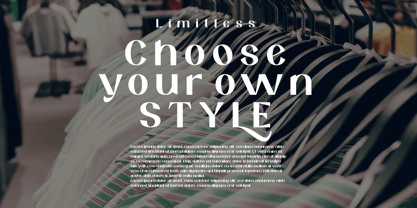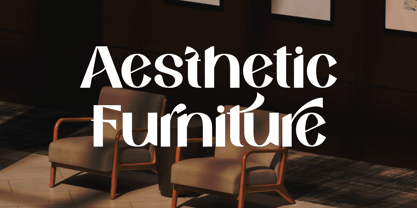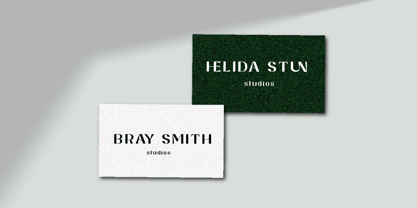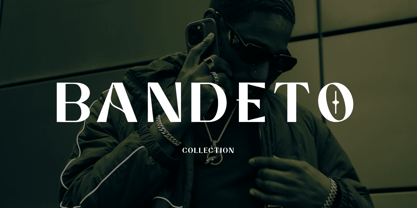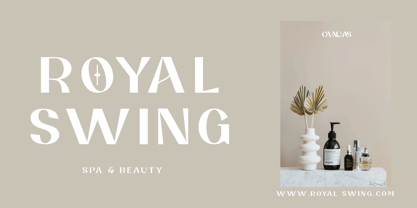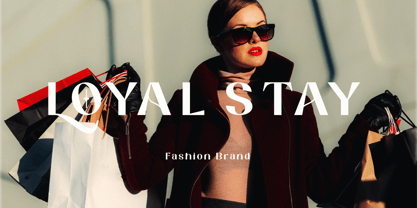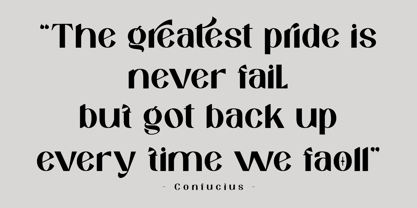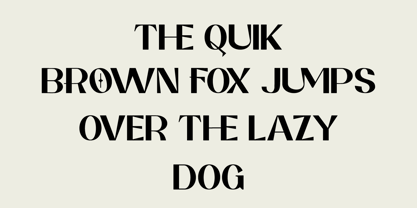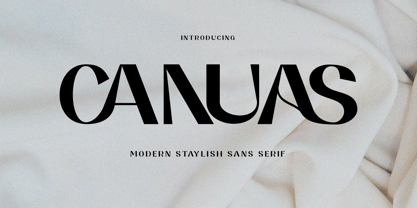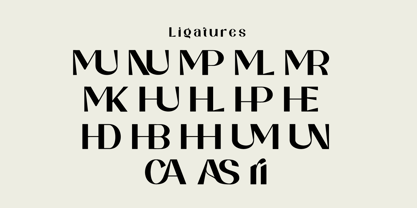
Canuas
The Canuas Font Family was designed by Ramadhana and published by Cut Story. Canuas contains 1 styles. More about this family
Introducing Canuas, a new retro-style serif font!
Canuas is a stylish font that blends a retro vibe with a bold look. Its thick curves evoke a 70s "groovy" feel, while its serif elements add a touch of tradition.
Canuas is perfect for nostalgia-themed designs and vintage-style logos. It features unique uppercase and lowercase characters, as well as numerals, punctuation, and multilingual support.
Characters, numerals, punctuation, multilingual support, plus alternate variations and ligatures; available in a Regular version. Follow my shop for future updates, including additional glyphs and language support. Please feel free to contact me if you would like your language included, or if you have requests for specific features or glyphs—I’d be happy to provide updates.